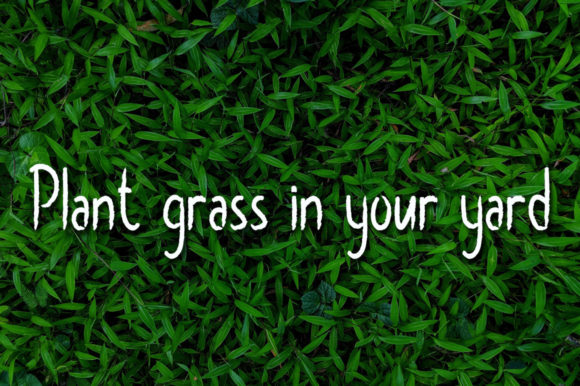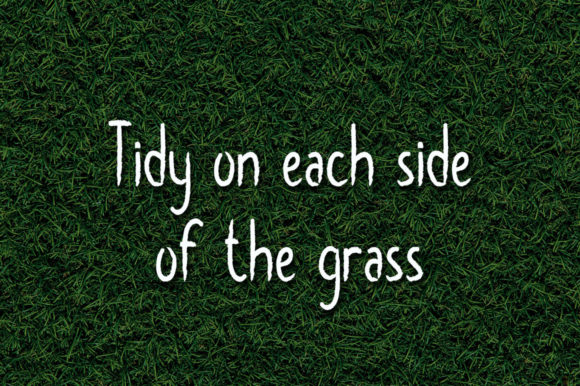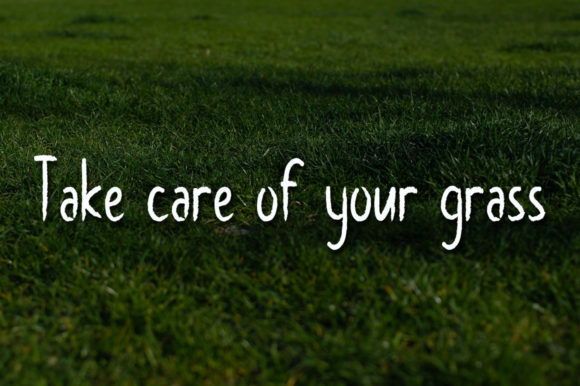
Grass Green Font
About Grass Green Font
Grass Green is a cute and casual handwritten font. No matter the topic, this font will be an incredible asset to your fonts’ library, as it has the potential to elevate any creation.